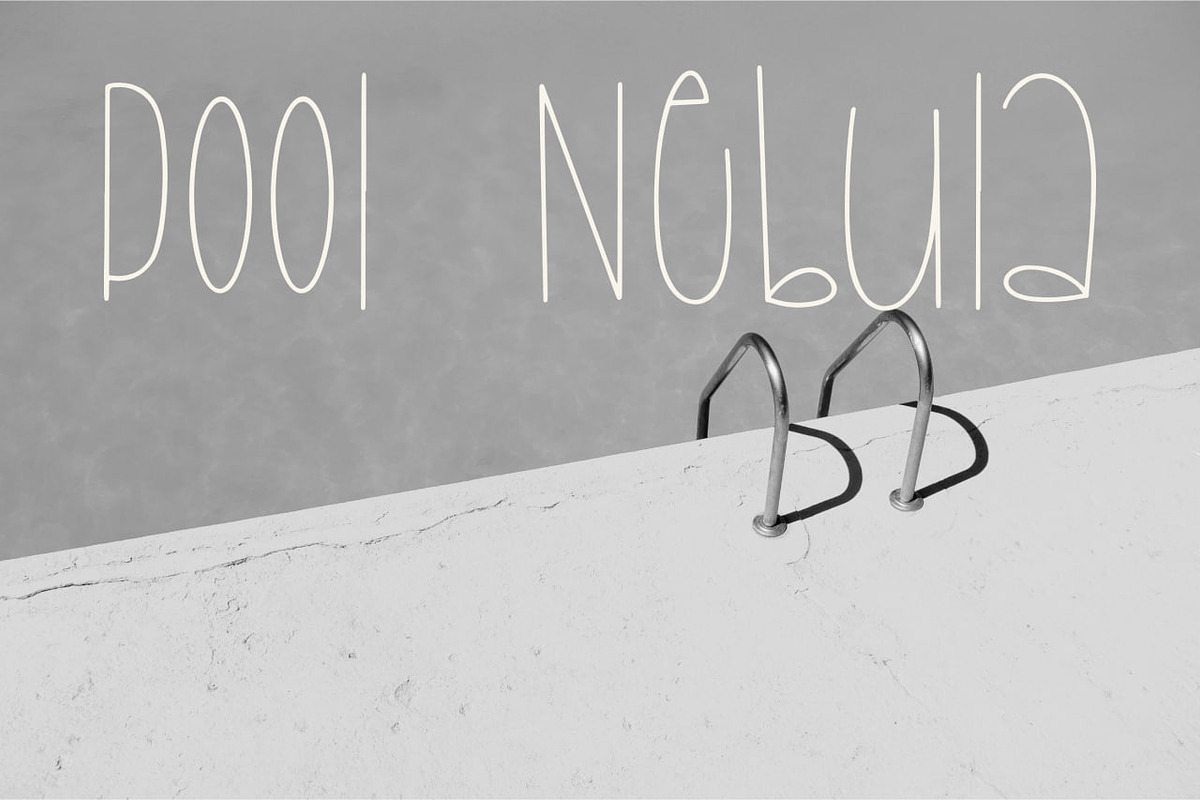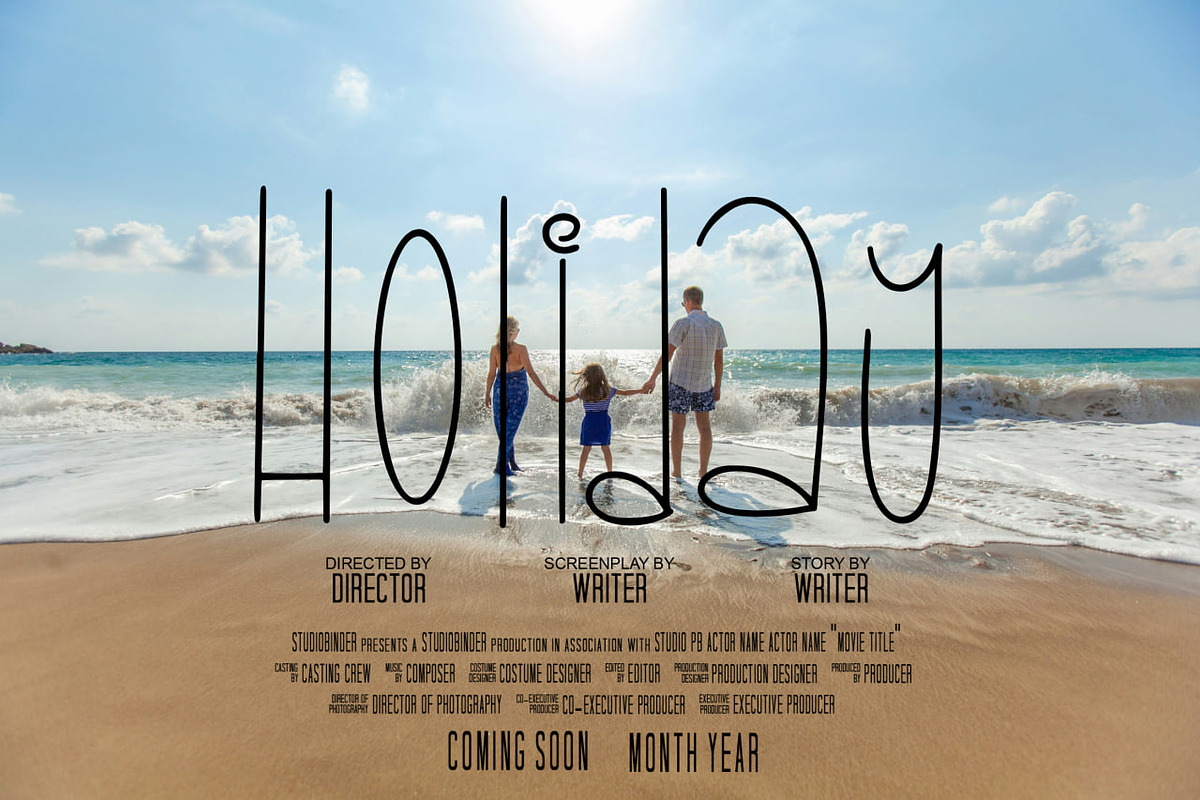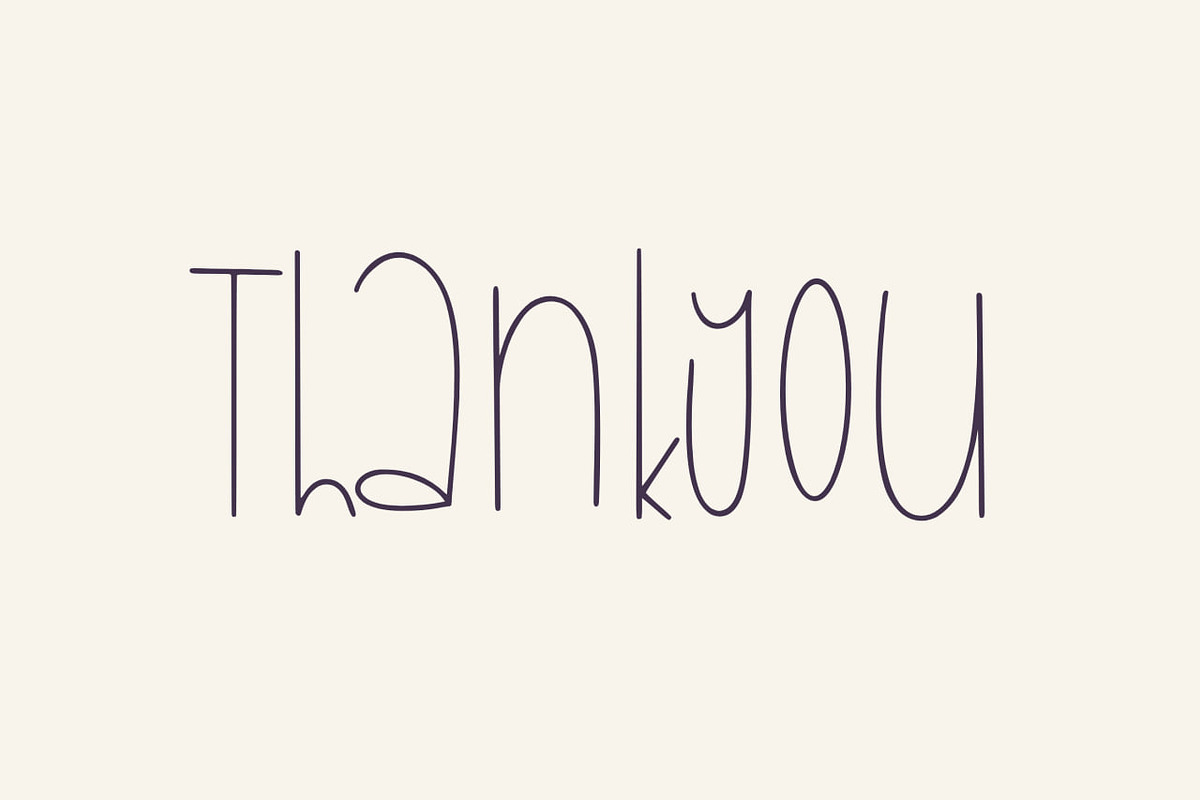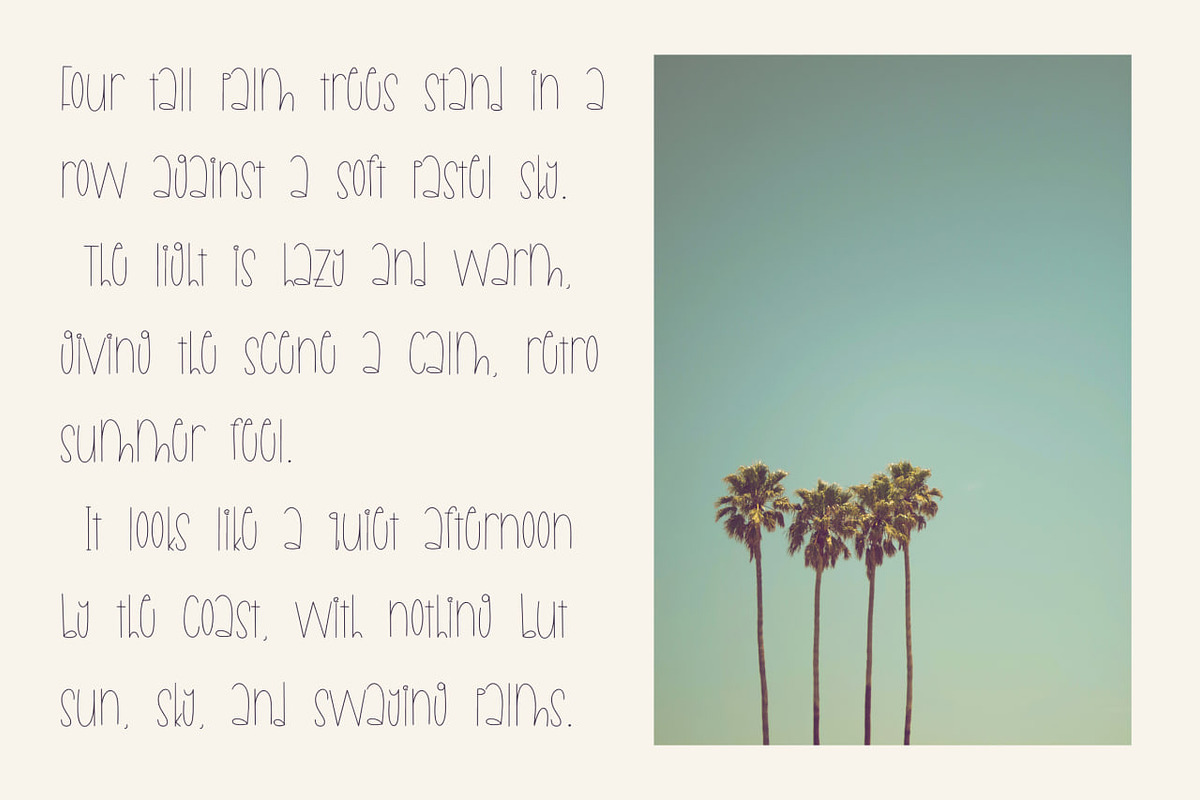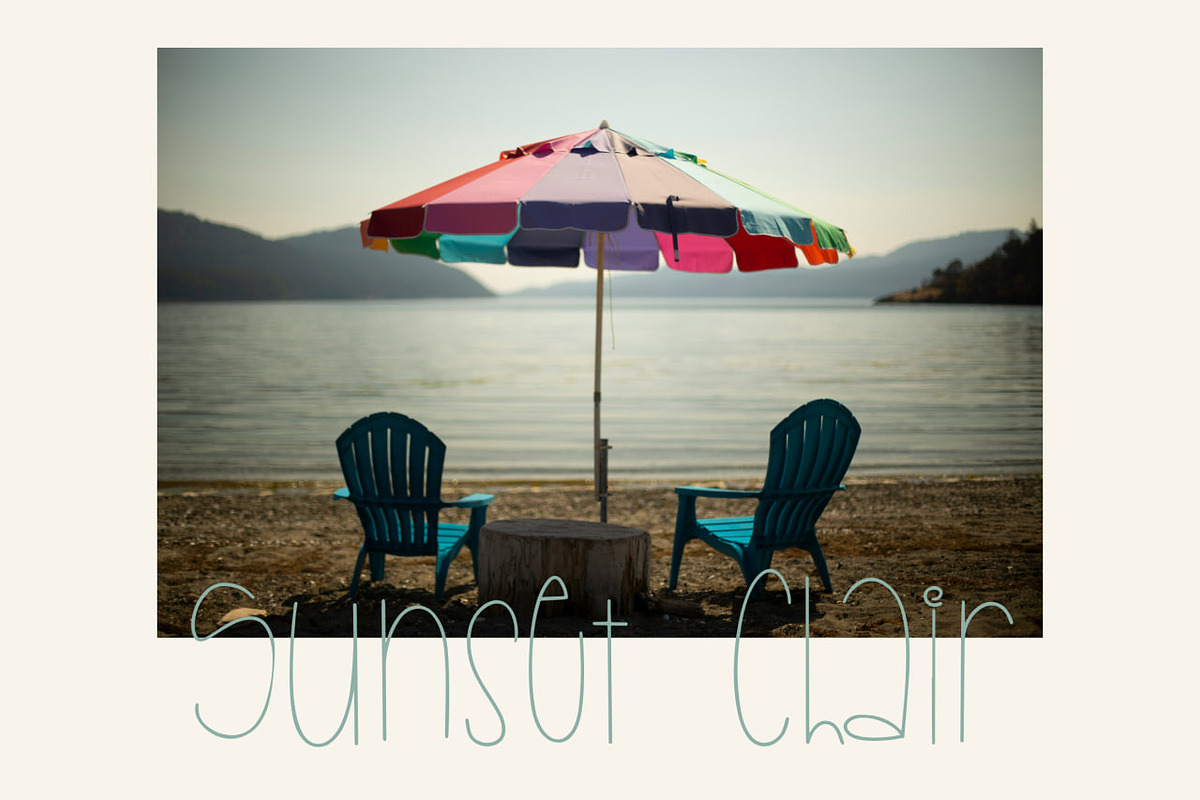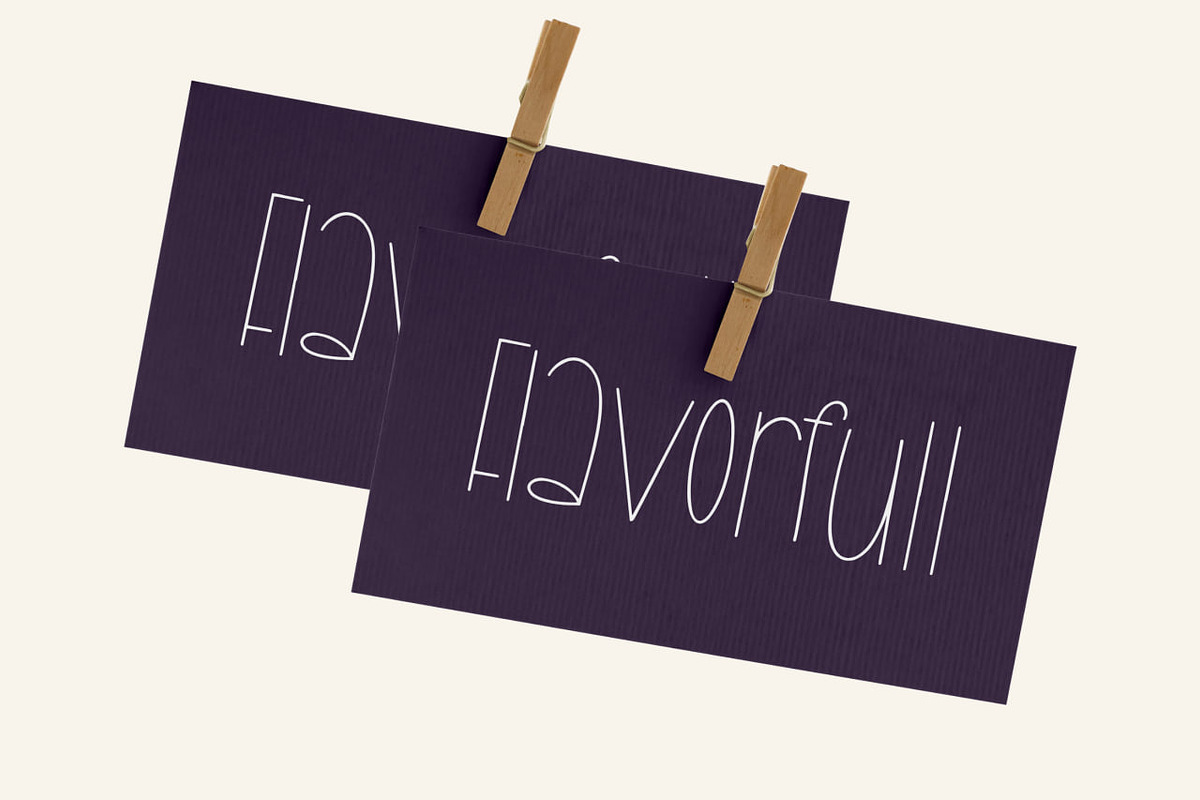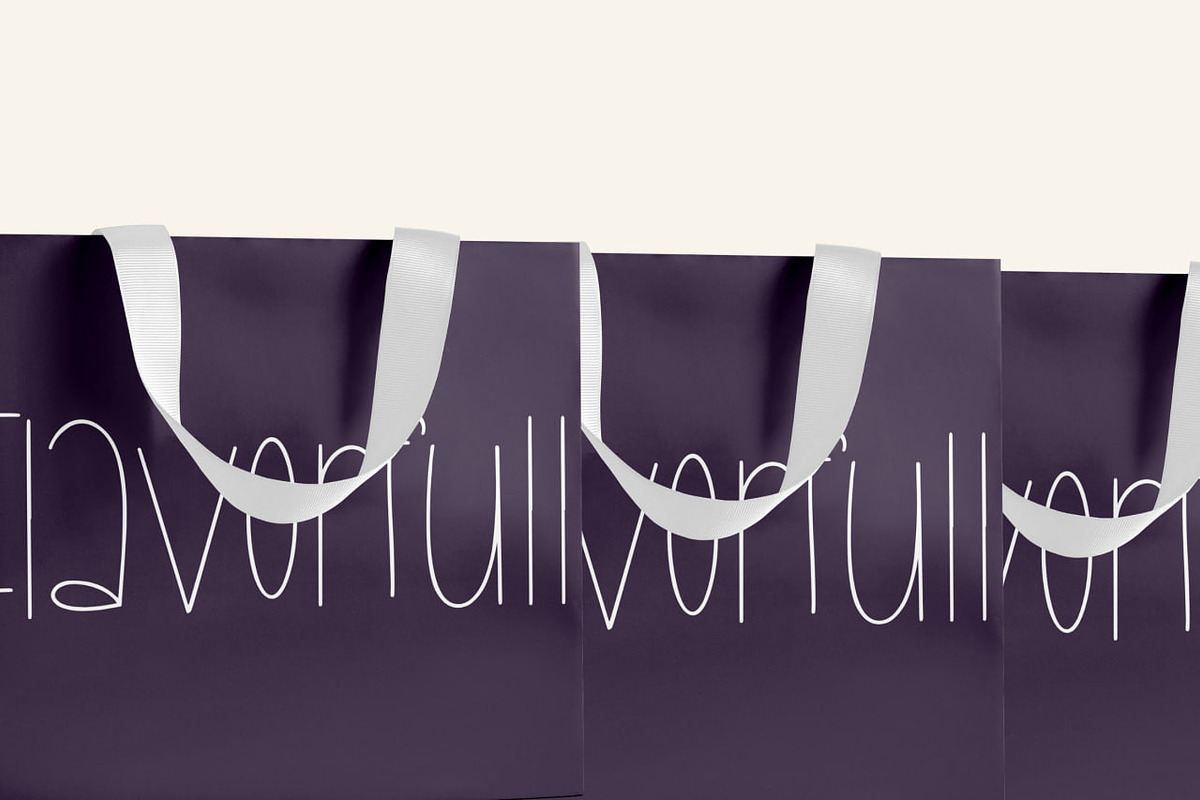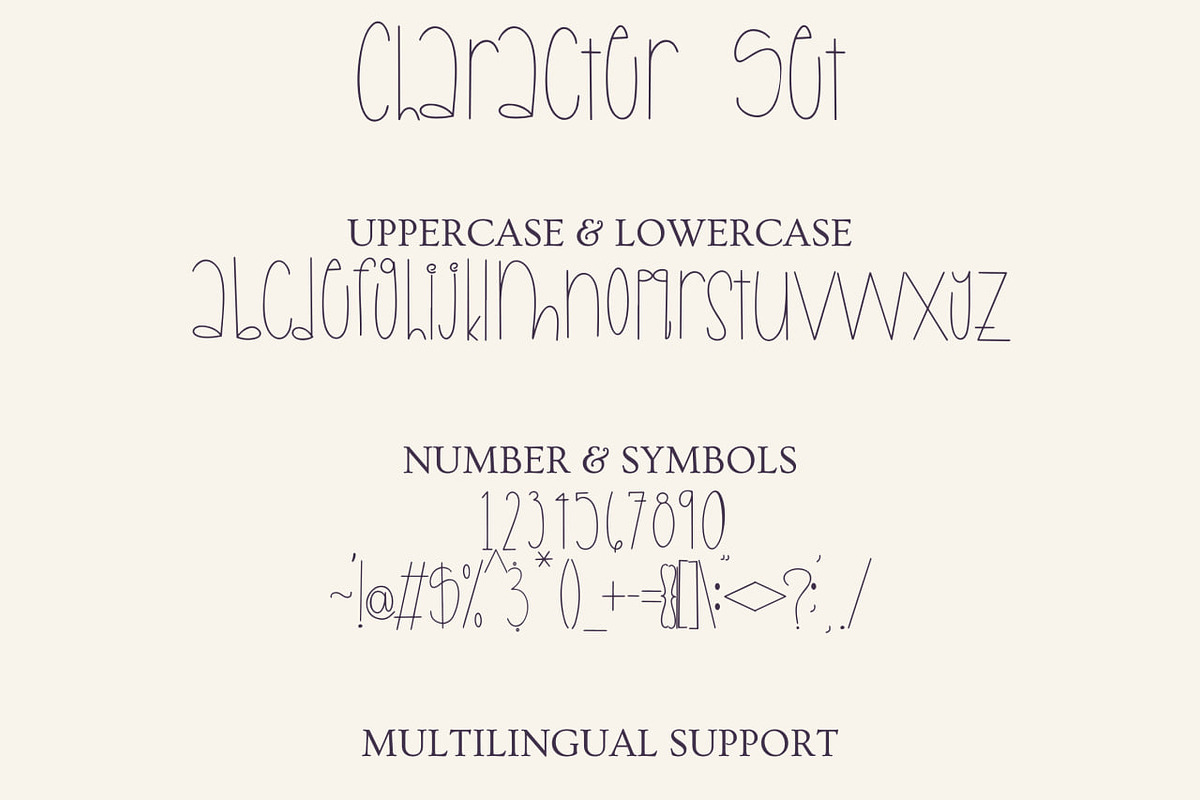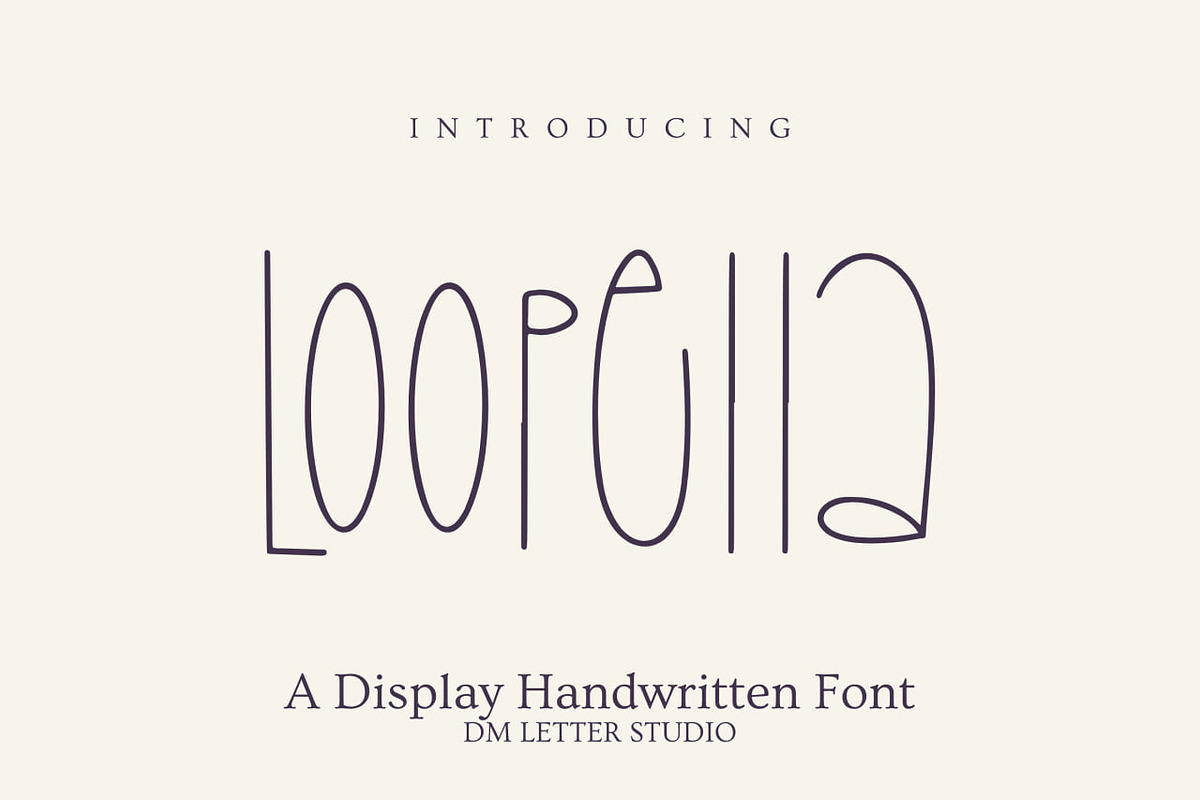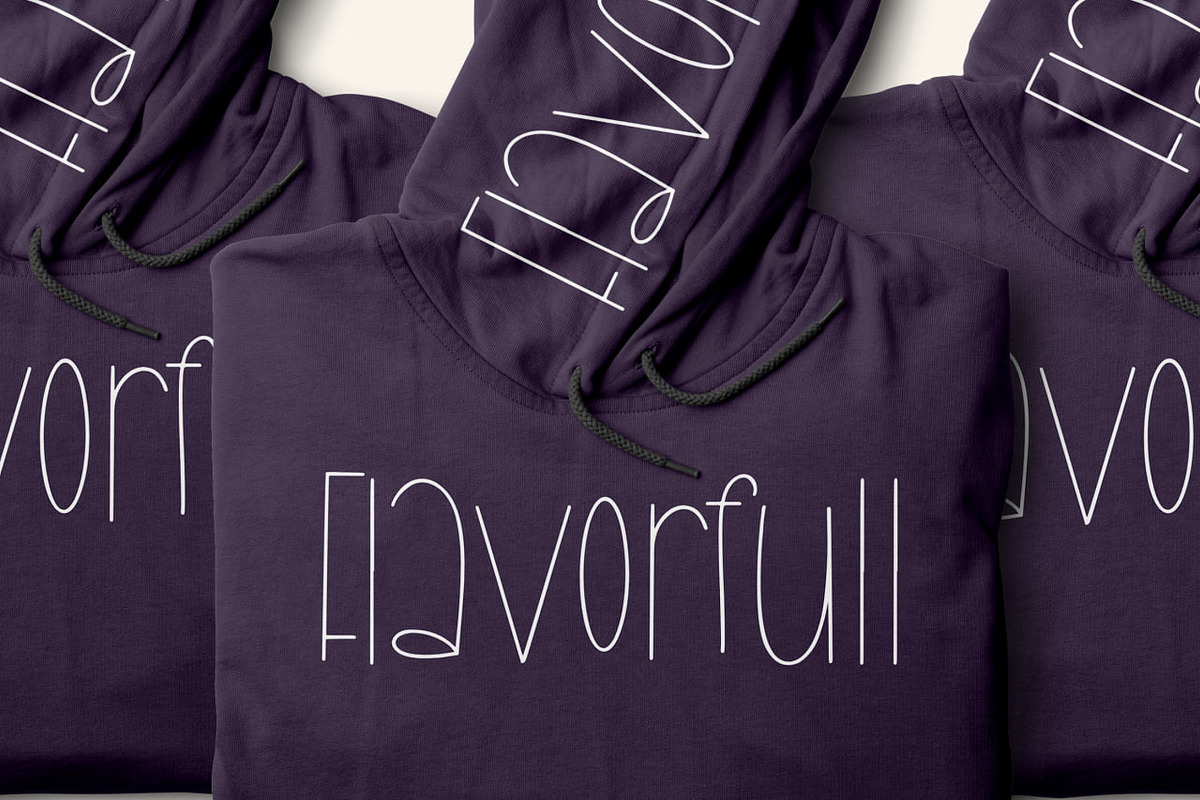
Loopela
Meet Loopela, the Playful Loop Handwriting Font
Loopela is a playful handwriting font with soft loops and a light, cheerful rhythm. It feels friendly, casual, and full of personality, like a handwritten note with a smile. The strokes are smooth and consistent, so text stays readable while still looking natural. Because the loops are clean and not overcrowded, Loopela works well at small sizes and shines in larger titles. Use it for quotes, branding, stickers, kids designs, social media, packaging accents, and fun creative projects. As a result, your designs feel warm, personal, and instantly inviting.
Fast layouts with the Loopela Font
Start with short phrases, names, or quotes and let the loops do the talking. After that, add supporting text in a clean sans or light serif font. Because Loopela has an airy feel, it works especially well in minimalist layouts, stickers, and social graphics. In addition, it looks great inside circles, speech bubbles, and soft frames. Finally, try color pairs like blush & cream, pastel mixes, charcoal & white, or sage & linen for a friendly look.
Creative uses and quick wins
Quotes, captions, and social media text
Stickers, planners, and journaling designs
Kids' projects, classroom decor, and crafts
Packaging accents, labels, and thank-you cards
Uppercase and lowercase letters
Numbers and basic punctuation
Design tips for Loopela Handwriting Font
Keep text short so the loops stay clear and playful. Also, increase line spacing slightly for multi-line quotes. For print, use light backgrounds to keep strokes visible. Finally, export at 300 DPI for print and at 2× size for web so everything stays crisp.